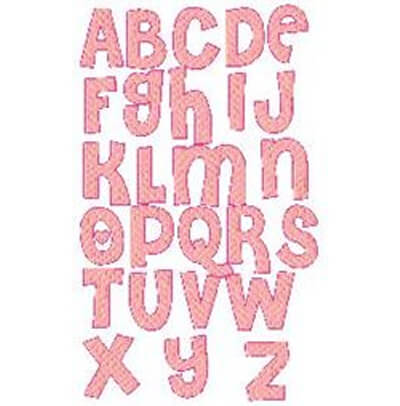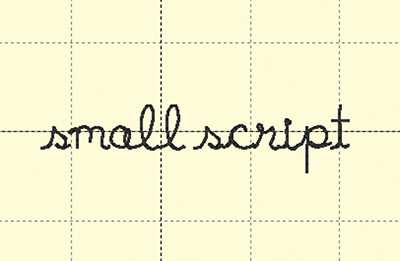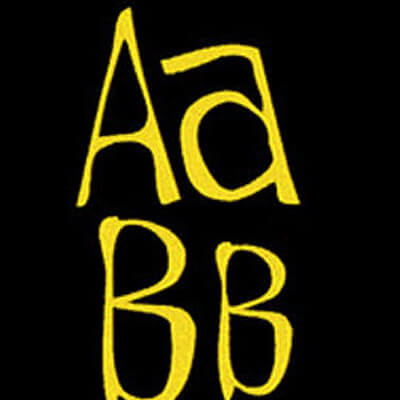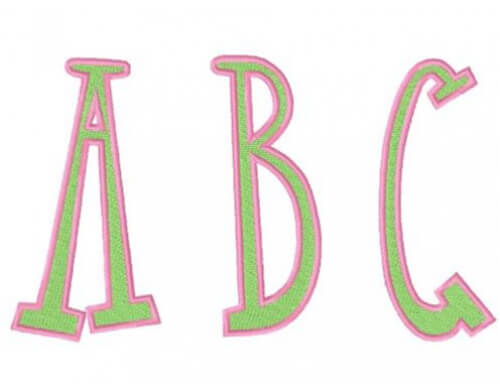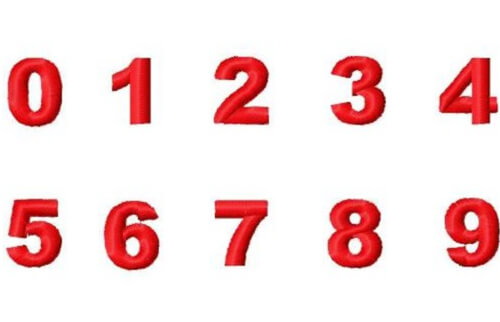
37 free embroidery fonts to download
Looking for free embroidery fonts to download?
I get it. The built-in fonts on your embroidery machine can get a little old. On my trusty little Bernina, I have five different typefaces to choose from and after 10 years+ of using this machine, I’m kind of done with all of them.
But, buying embroidery fonts can get a bit expensive. If you could find sources for free embroidery fonts, why not take advantage of it?
Fortunately there are a few embroidery digitizers and software companies that offer free embroidery fonts you can download and use to stitch out words, phrases, names and monograms on your embroidery machine.
What are embroidery fonts?
If you are new to machine embroidery, you may not even know what embroidery fonts are.
Embroidery fonts are like fonts that you use on your computer. They come in a set and can be a variety of different styles and cases. They often include upper and lower case letters, numbers or punctuation. When the individual letters are combined, you get words and phrases.
Embroidery fonts are unlike the fonts used on your computer because each letter is a special embroidery file. When you use an embroidery font, you are actually stitching out a design for each letter.
Embroidery fonts built into your embroidery machine
The embroidery fonts built into your embroidery machine are commonly referred to as “built-in fonts,” and almost every machine comes with a few of them.
These are great to work with in a pinch but they do have some limitations.
First, when you create your word or phrase with these fonts, you must do so on your tiny screen on your embroidery machine which can be a bit tedious.
Secondly, if you want to set your type on a curve, or integrate any other types of manipulations, you will definitely want to work with your embroidery font within a software and you cannot do that if you are using the fonts built into your embroidery machine.
Types of embroidery fonts
Embroidery fonts sold in typical embroidery file formats like: PES, DST, EXP, JEF
Many digitizers that offer embroidery fonts offer them in the same file formats as embroidery files. If you want to build a word or a phrase with these individual letters (and you don’t have any embroidery software), you will need to load them into the machine one-by-one and position them in place.
BX fonts
BX fonts were invented by Embrilliance and can only be used within their software. These fonts are are great because they offer a wide variety of features and manipulations that you cannot do with other types of embroidery fonts.
For example, many BX fonts are scalable so you can stitch them out at any size.
BX fonts will not load directly into an embroidery machine. You must use Embrilliance software in order to take advantage of these types of fonts.
ESA fonts
ESA fonts are only available for use in Hatch / Wilcom software. They work much like BX fonts in that they can only be used in the software and not loaded directly into an embroidery machine.
Fonts that are not embroidery fonts
TrueType Fonts (TTF)
If you have ever created something in Microsoft Word, or another word processing program like Pages, then you have worked with TrueType fonts before. These fonts are used to add text to a document, and cannot be used for embroidery directly.
Some applications allow you to create embroidery designs from TTF fonts but the results can be varied.
How to download embroidery fonts
Whether you get the fonts for free or pay a little for them, they will more than likely be delivered to you in the form of a ZIP File. The first thing you will need to uncompress the ZIP to get to all of the embroidery files inside.
Your next step will depend on the format of the files and how you want to work with them. If you are just using one letter to create a single initial monogram – you simply find that file and transfer the embroidery design to your machine.
But, if you want to use the font to make a word, name or phrase, you can proceed a couple of different ways.
How to make words and names with your free embroidery fonts
You will probably also want to transform the individual letters into a word, phrase or monogram. The way you do this depends on what format embroidery designs you are working with. If each letter is actually an embroidery design (like a PES, JEF, etc…), then in order to build the word or phrase you need to combine them together one by one using a program like SewWhat-Pro.
If, on the other hand, you are working with BX fonts, you can import the BX font family, type out your word or phrase and then export it as a completed embroidery design. You can see the difference in these processes in my previous post re: how to set up a monogram file.
However you assemble the letters together, ultimately you will want to end up with a word, name, phrase or monogram that is in an embroidery file format that your machine will read.